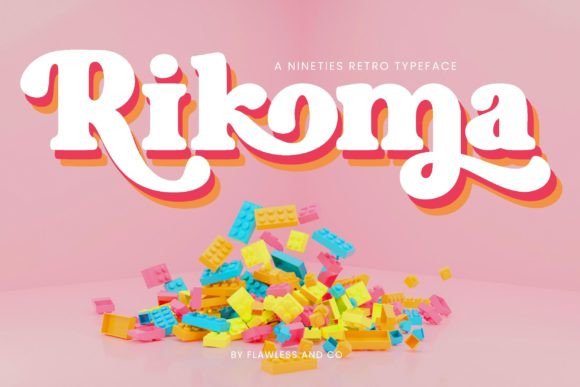
Prepare to be mesmerized by Rikoma, a font that oozes groovy retro vibes with its bold and playful style. Designed by the talented Flawless And Co., this display font is a true gem, perfect for adding a touch of whimsy and charm to your creative projects.
Step into a world of bohemian bliss as Rikoma takes you on a journey through time, capturing the essence of the carefree spirit and playful energy of the past. With its meticulously crafted characters, each letter dances across the screen, evoking a sense of nostalgia and good vibes.
Whether you're a designer, a creative entrepreneur, or simply someone who loves to express themselves through art, Rikoma is your perfect companion. Let your imagination soar as you explore endless possibilities with this versatile font, perfect for a myriad of projects that yearn for a touch of retro flair.
Unleash your creativity and let Rikoma work its magic on your posters, branding materials, t-shirts, business cards, logos, and more. Its captivating style is sure to leave a lasting impression, attracting attention and sparking conversations wherever it goes.
But wait, there's more! Rikoma comes with a treasure trove of alternate characters, just waiting to be discovered. Experiment with these hidden gems to create unique and captivating designs that truly stand out from the crowd.
Dive into the world of Rikoma today and let this groovy retro font ignite your passion and creativity. Its charm and versatility will leave you inspired and ready to take your projects to new heights.